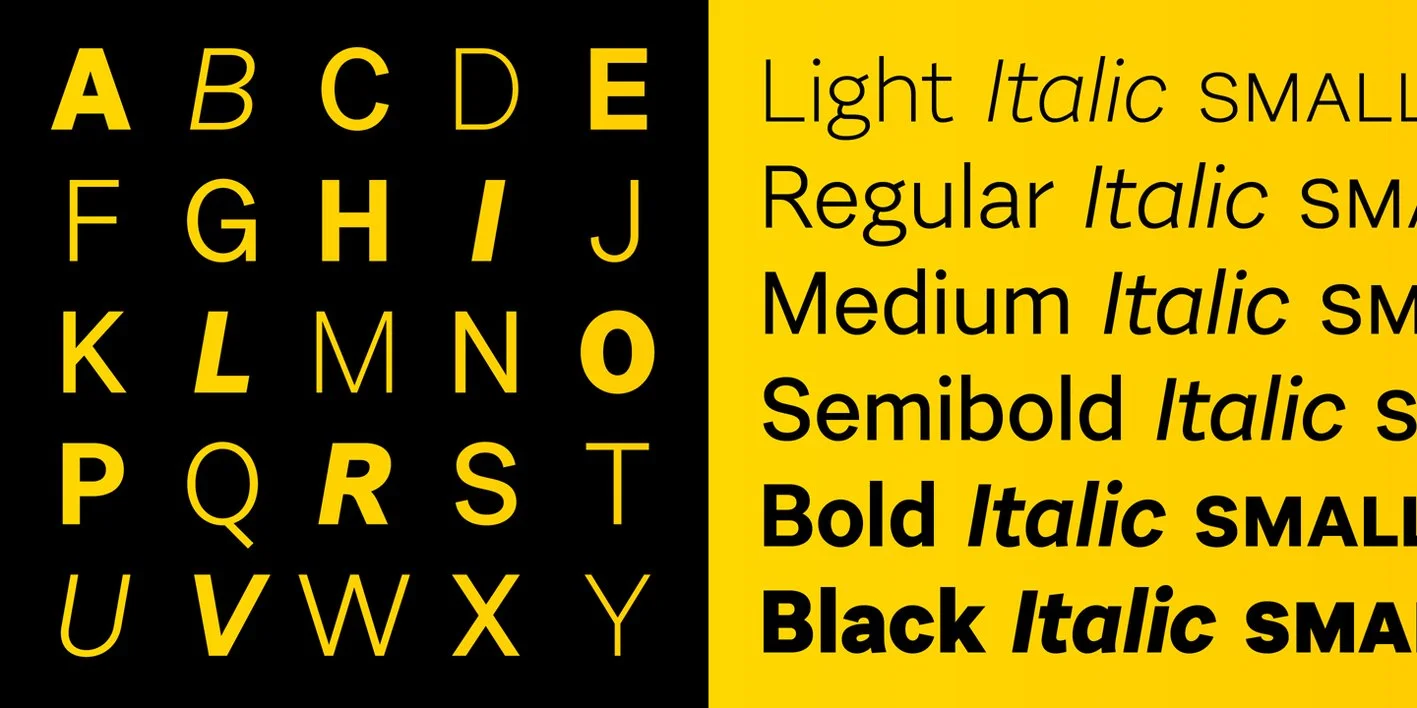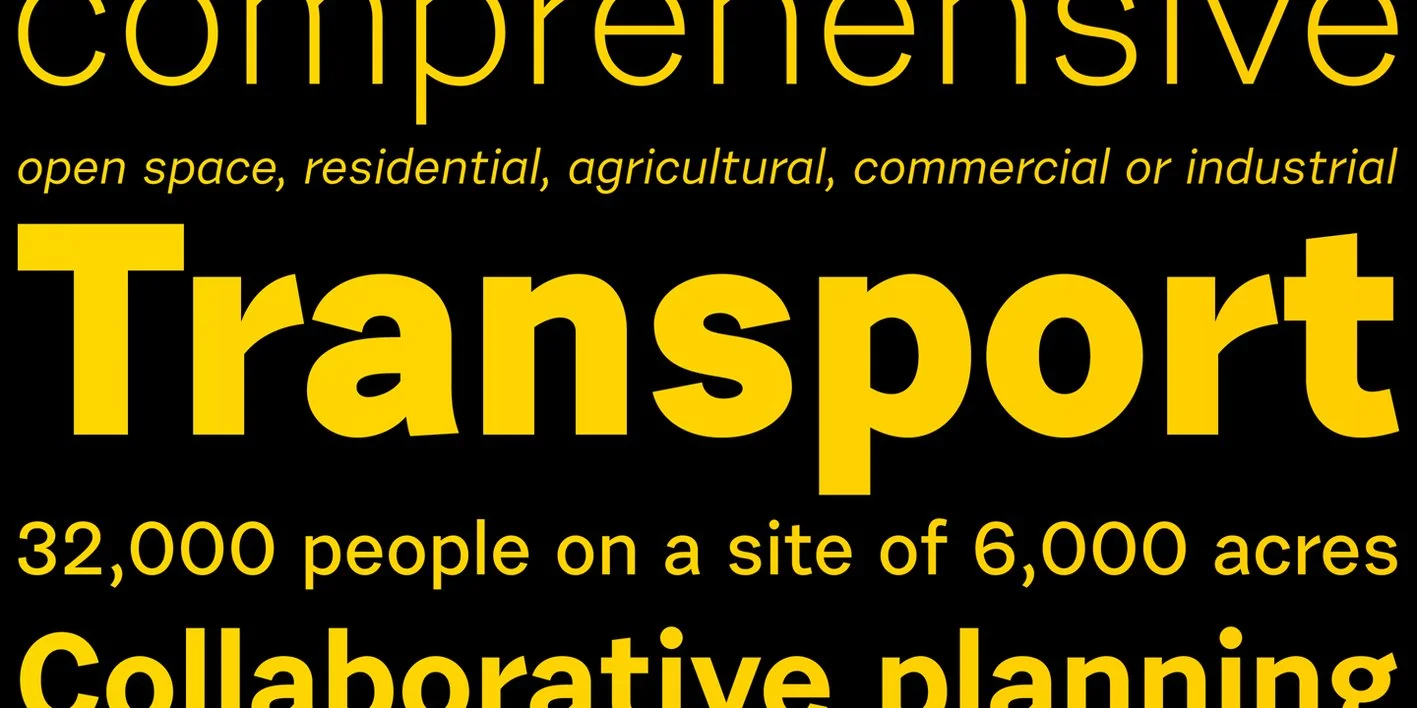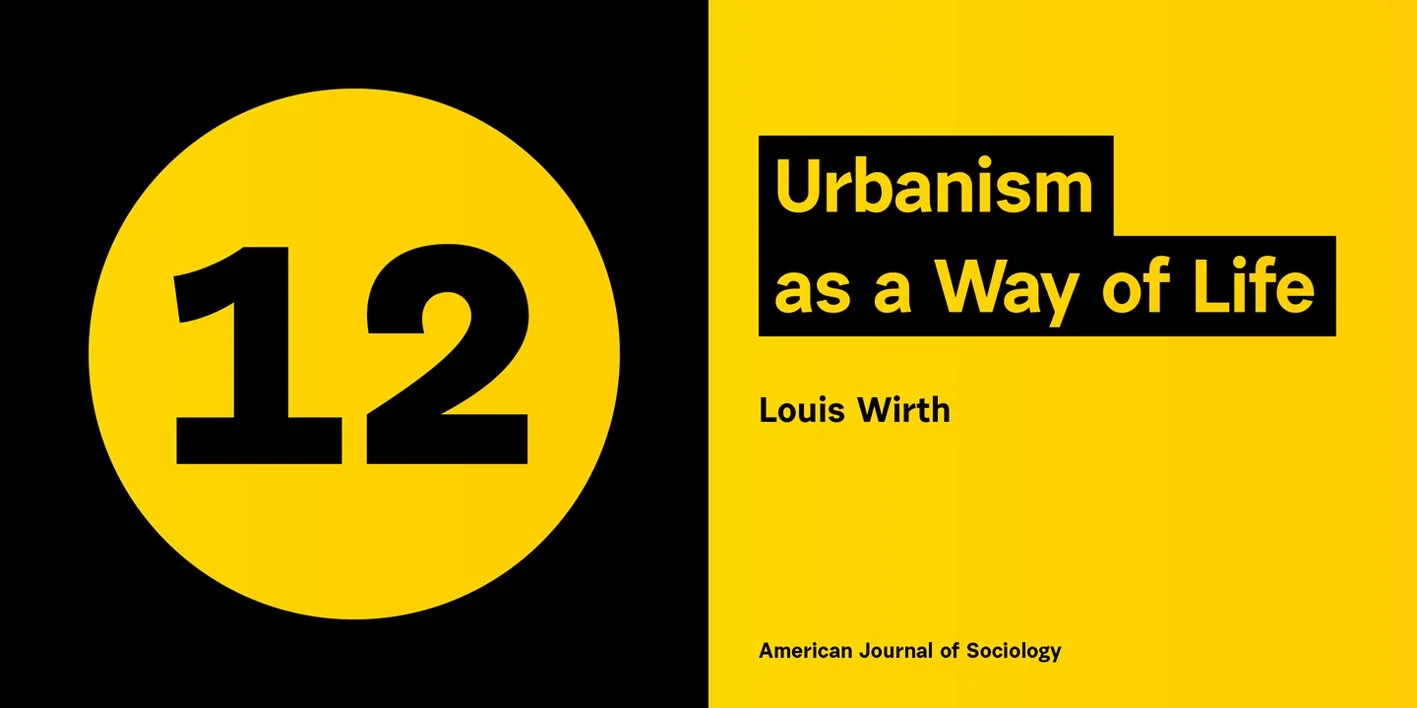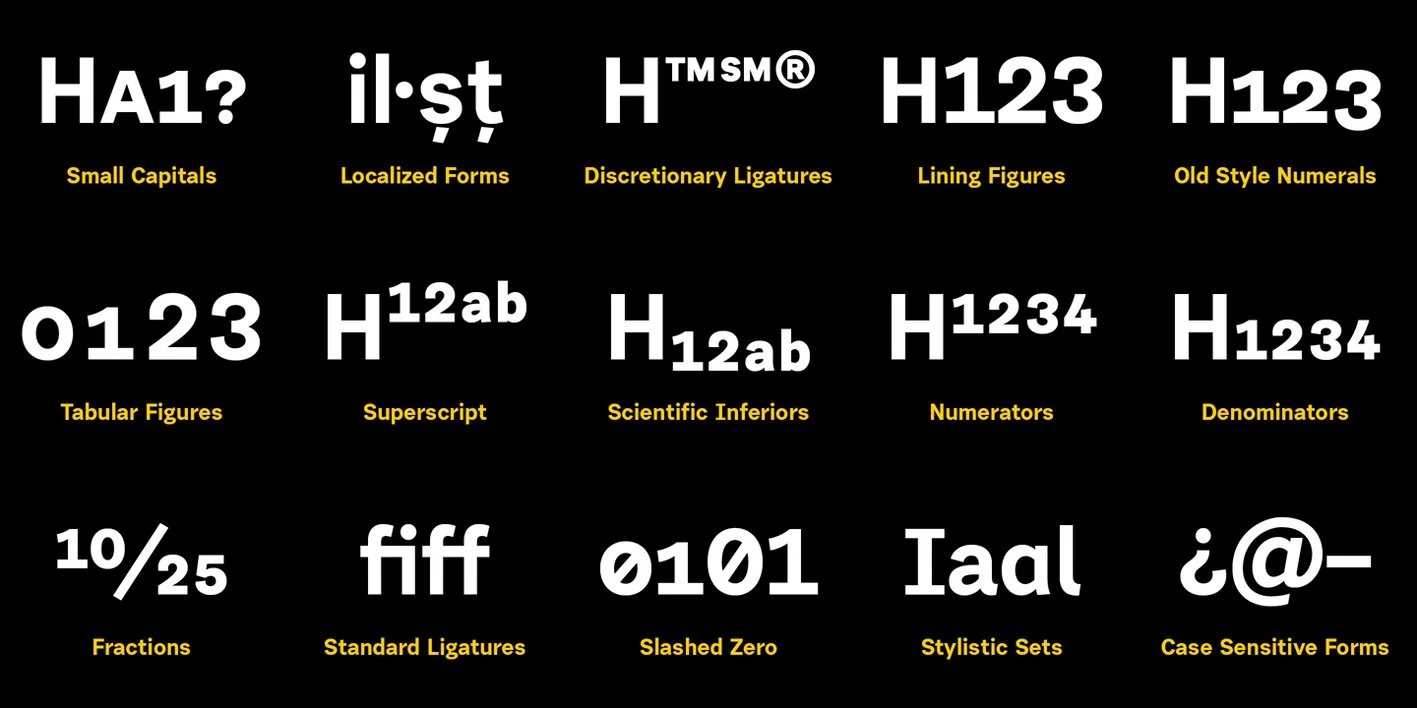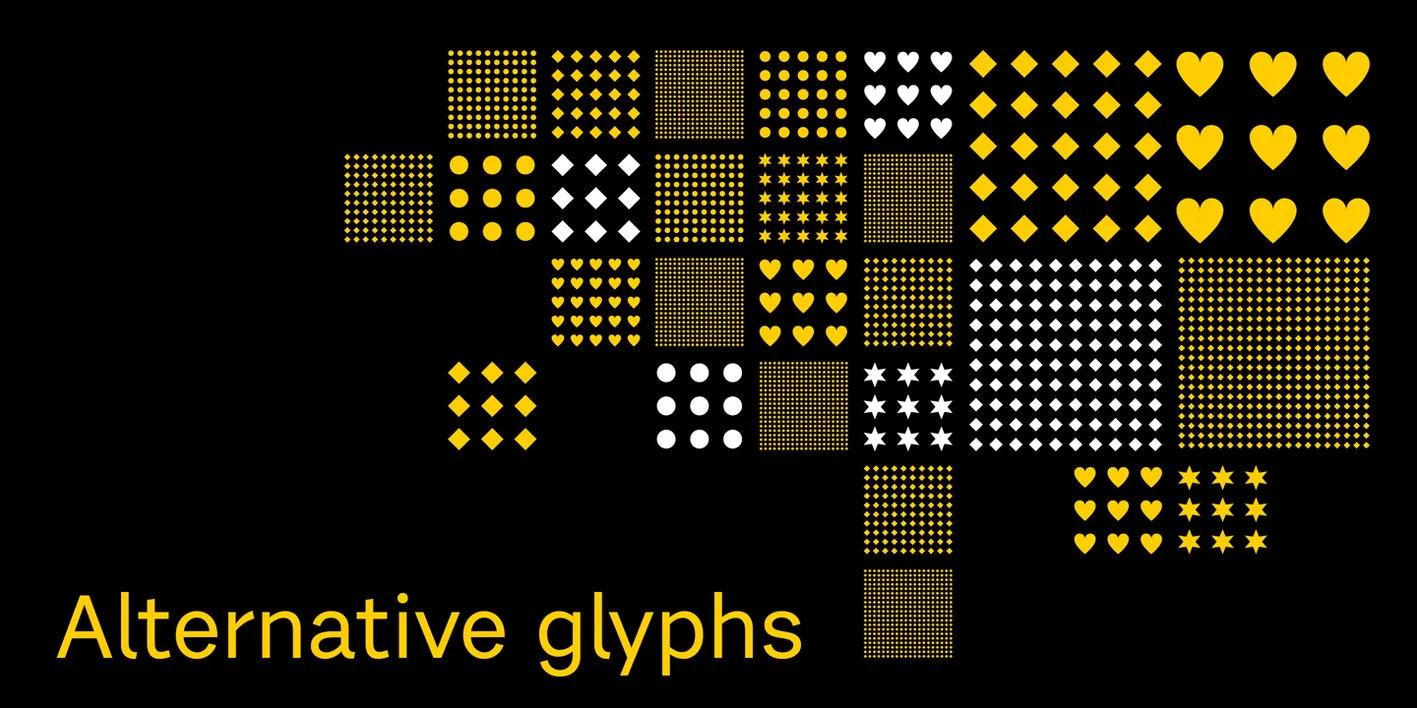
Urban Grotesk Font
A good typeface communicates tone before a single word is read. Urban Grotesk achieves this through versatility across print and screen contexts. The typeface brings a versatile sensibility to a broad range of creative disciplines, with visual harmony and precise spacing that holds up whether the work is print-first or screen-first.
In practice, Urban Grotesk proves particularly effective for web design, annual reports, signage systems, product labels, advertising campaigns. Designers reaching for it find that the type decisions feel resolved rather than laboured — a useful quality when client timelines are tight.
The range of applications extends to packaging design, environmental graphics, editorial layouts, brand identity systems. That breadth is deliberate: the proportions and spacing were stress-tested across a wide range of mock briefs before the typeface was finalised.
At smaller sizes the design retains its character without becoming cluttered. This resilience across scales makes Urban Grotesk equally suitable for a business card and a billboard — a useful property when assets must scale across a campaign.
Motion designers building title sequences and lower thirds find Urban Grotesk a reliable choice for projects that demand both personality and restraint. The design avoids the self-conscious quirkiness that dates quickly, settling instead for considered distinctiveness that holds up over time.